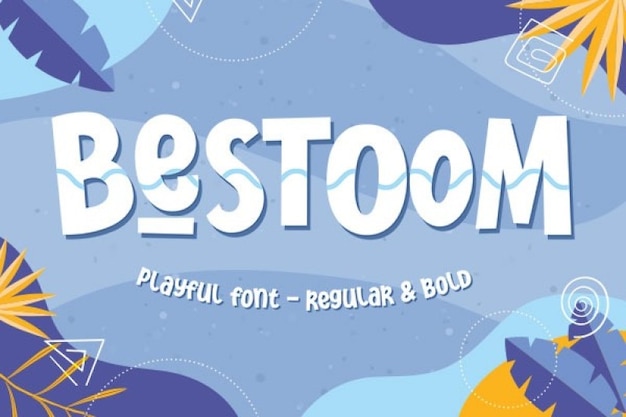
Bestoom
Bestoom Font
Play is the father of inventions and mesmerizing artworks. We suggest mixing fun and design to your project with this Bestoom font. Its bubbly, irregular strokes make it look dynamic, fresh and somewhat rebel thanks to its asymmetry. It's perfect for any display format related to playful and child-like projects for the little ones. Download it from Freepik now!